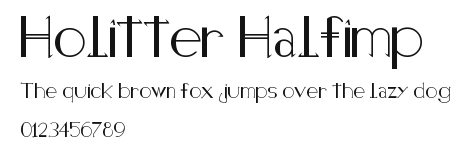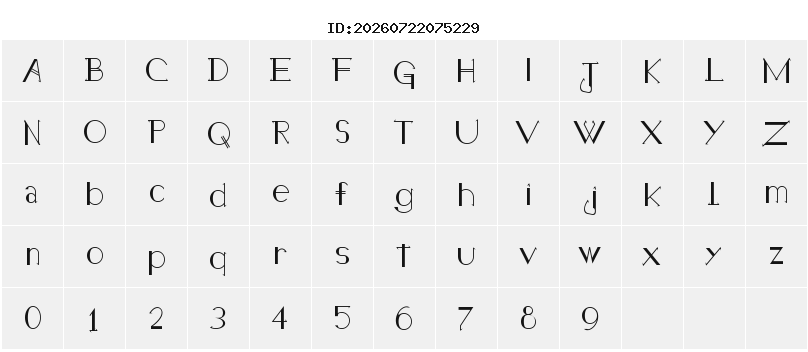
Holitter Halfimp Preview
• Font Name: Holitter Halfimp
• Designer: Holitter Studios
About Holitter Halfimp.ttf
Holitter Halfimp.ttf is a modern, elegant sans-serif font designed for ultimate readability and visual harmony. Perfect for branding, headlines, web design, and print materials.